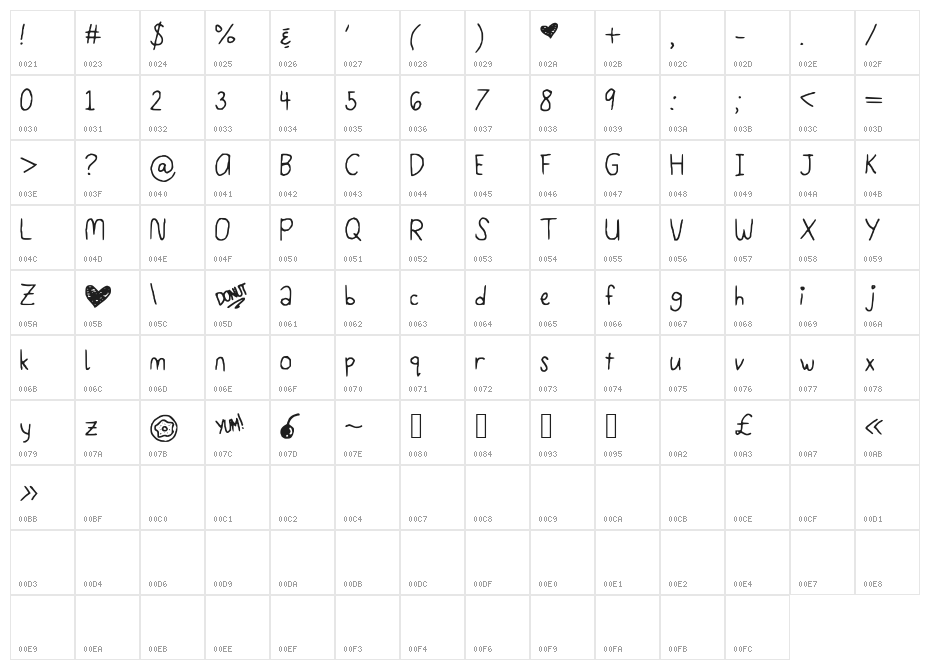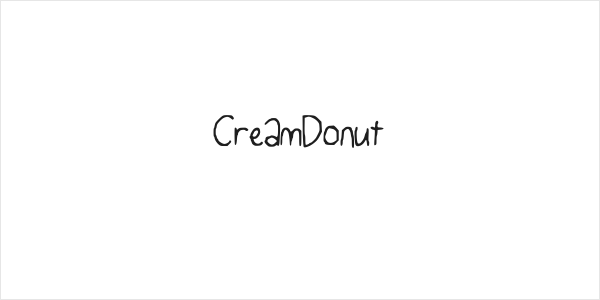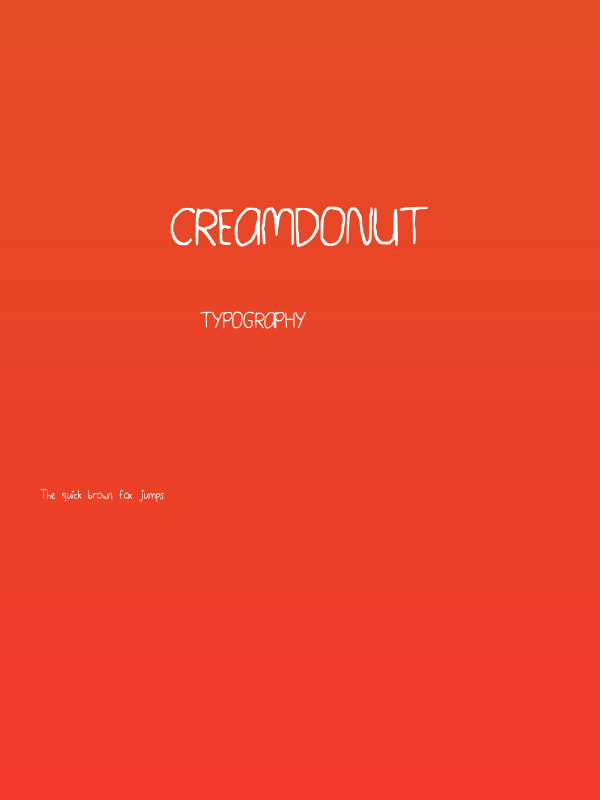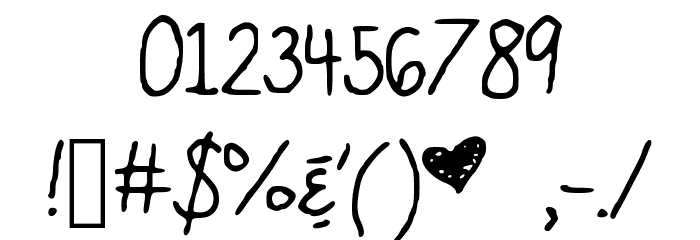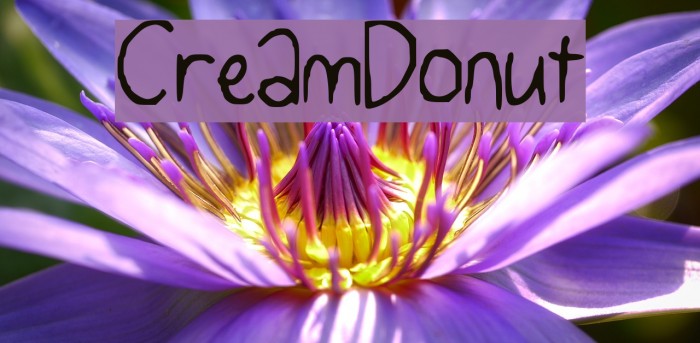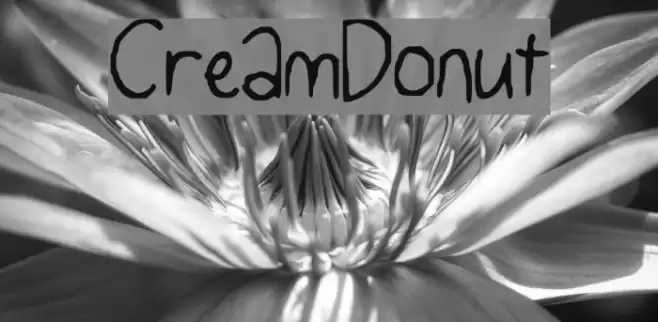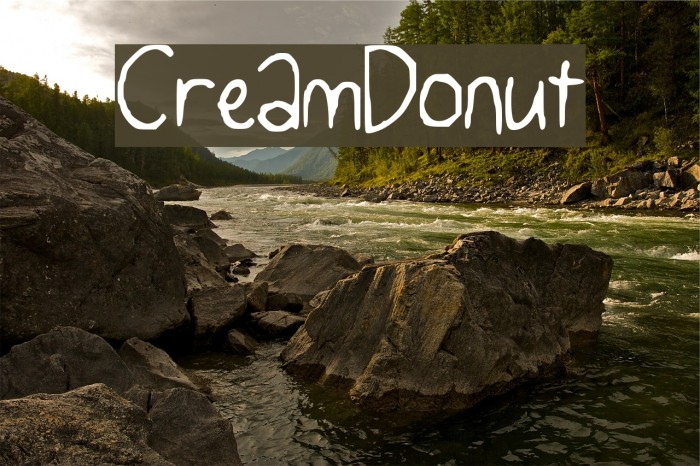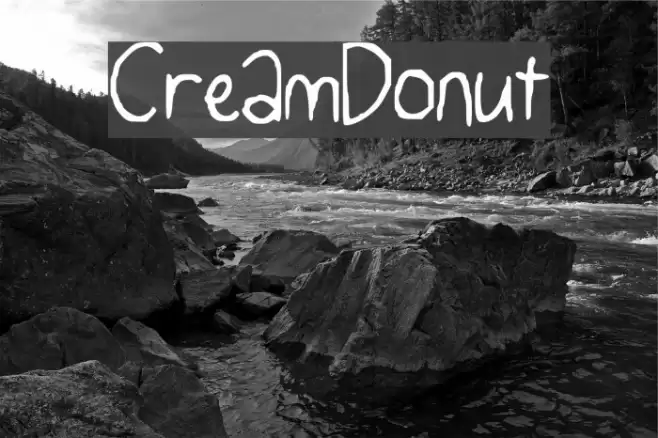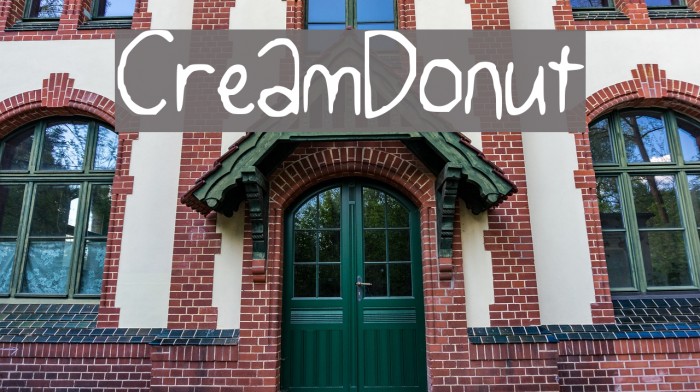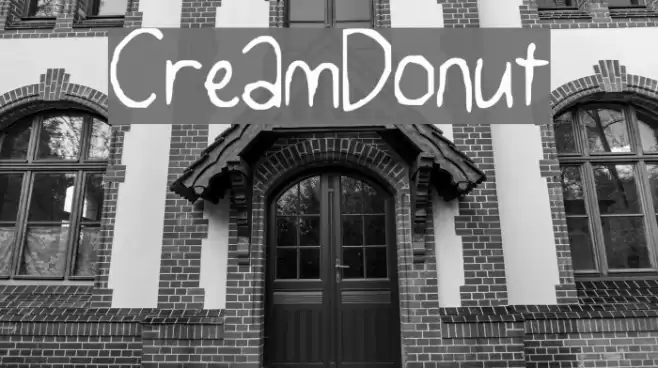
CreamDonut Font
| Общий стиль | Casual, Playful |
| Область применения | Headlines, Informal text, Creative projects |
| Рекомендуемые проекты | Ideal for children's books, greeting cards, playful branding, and casual invitations. |